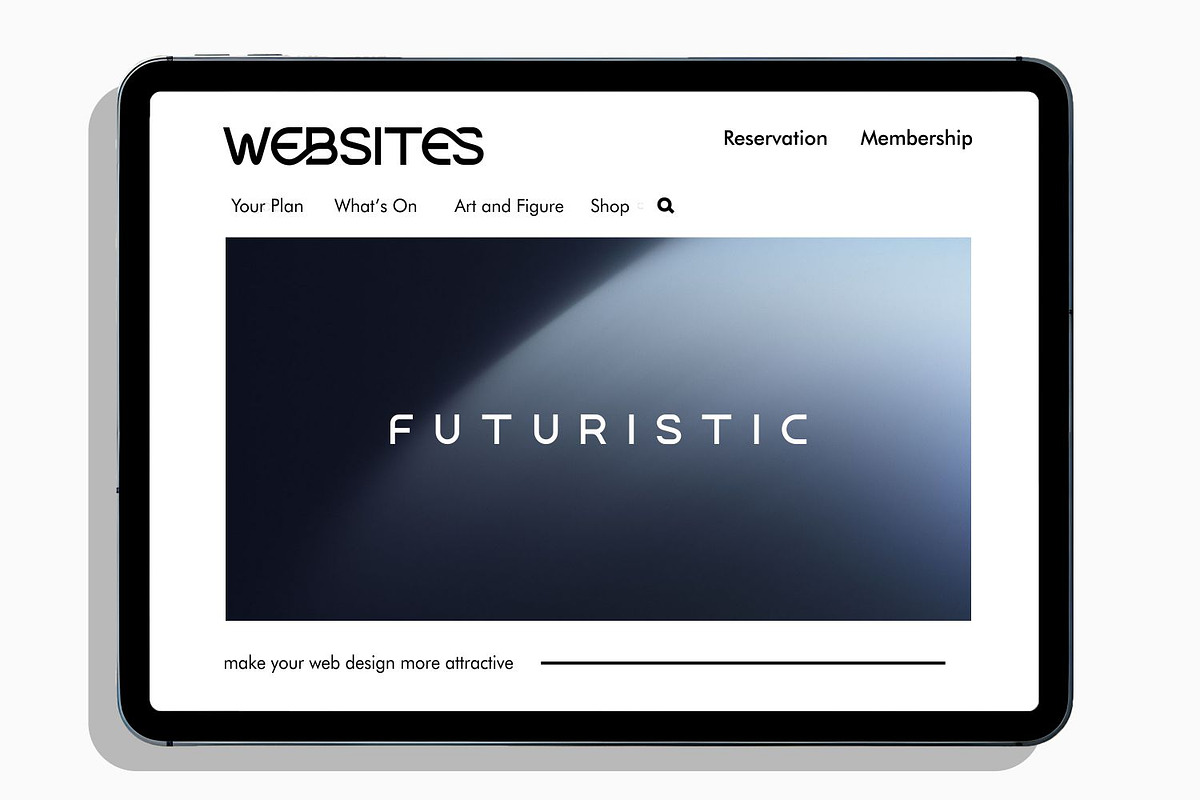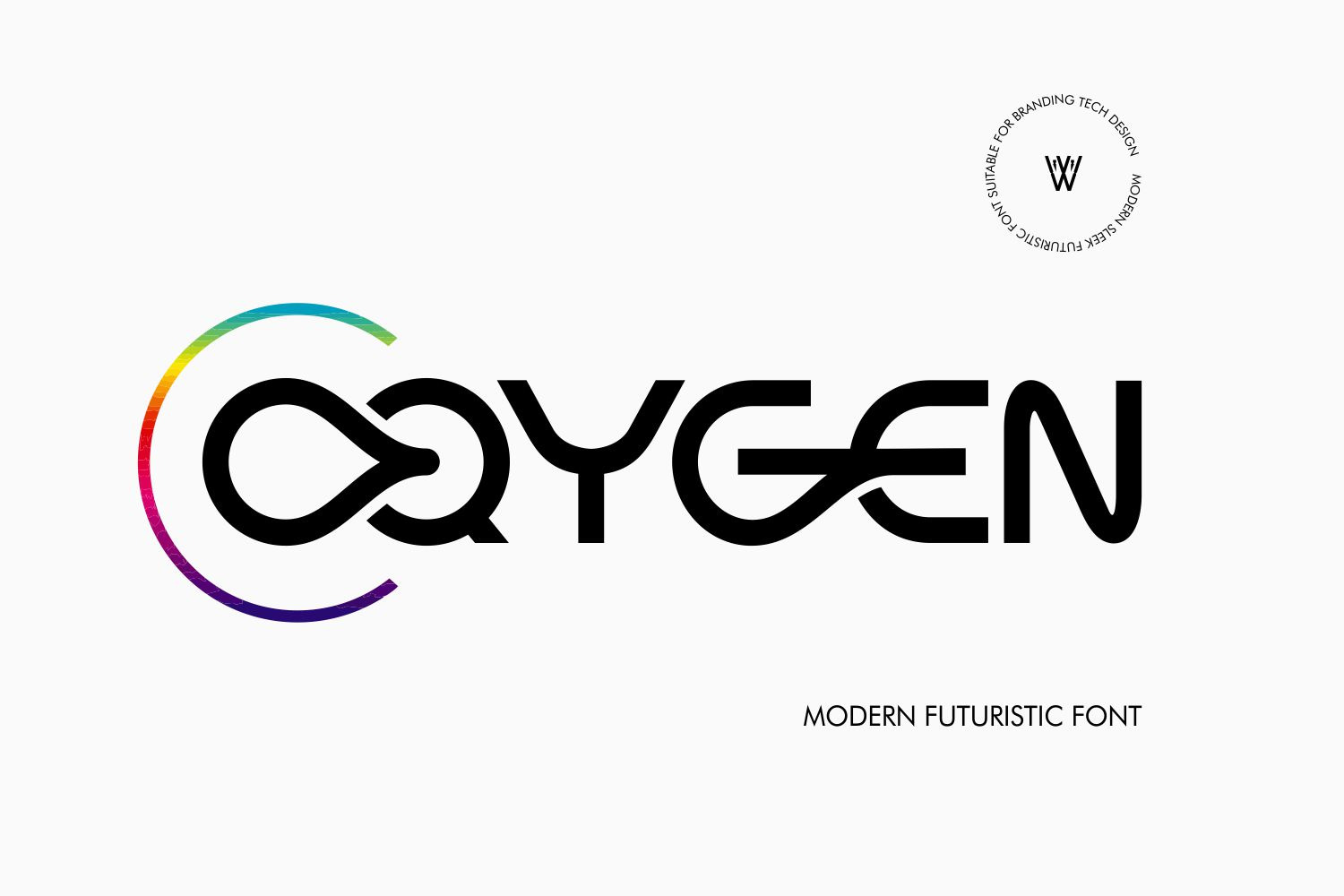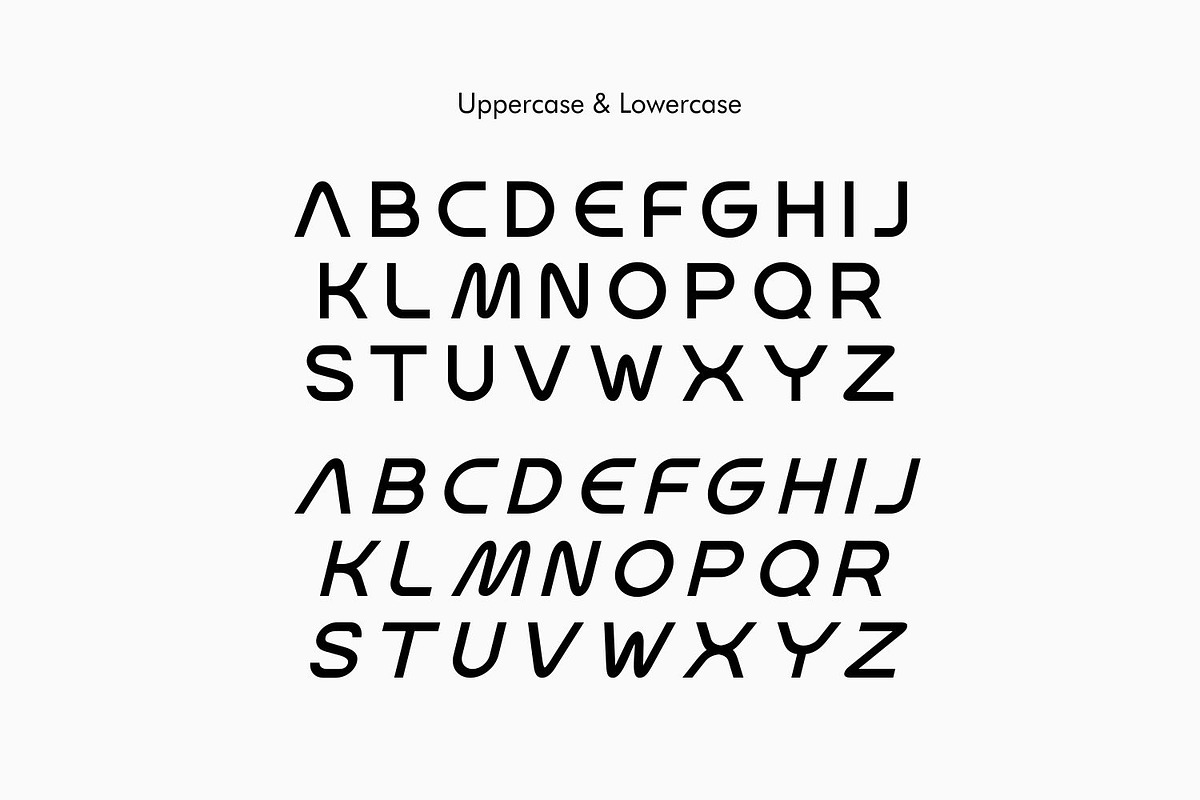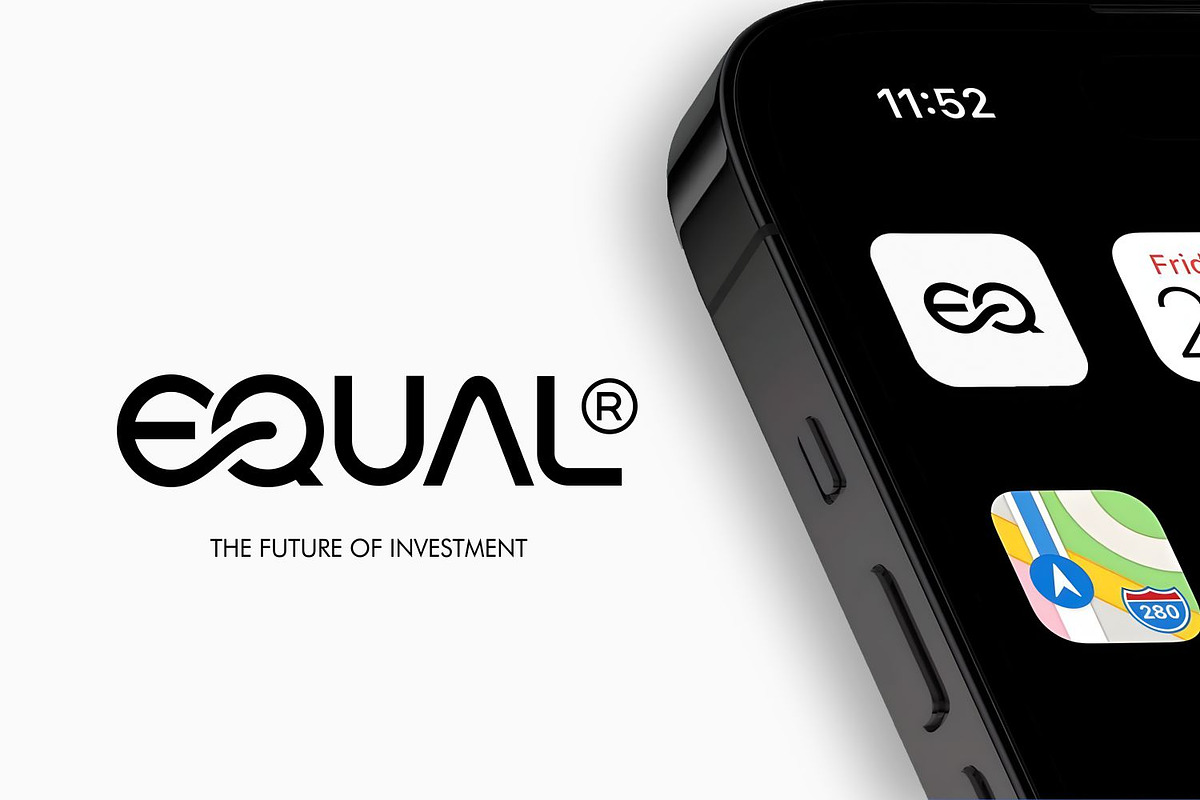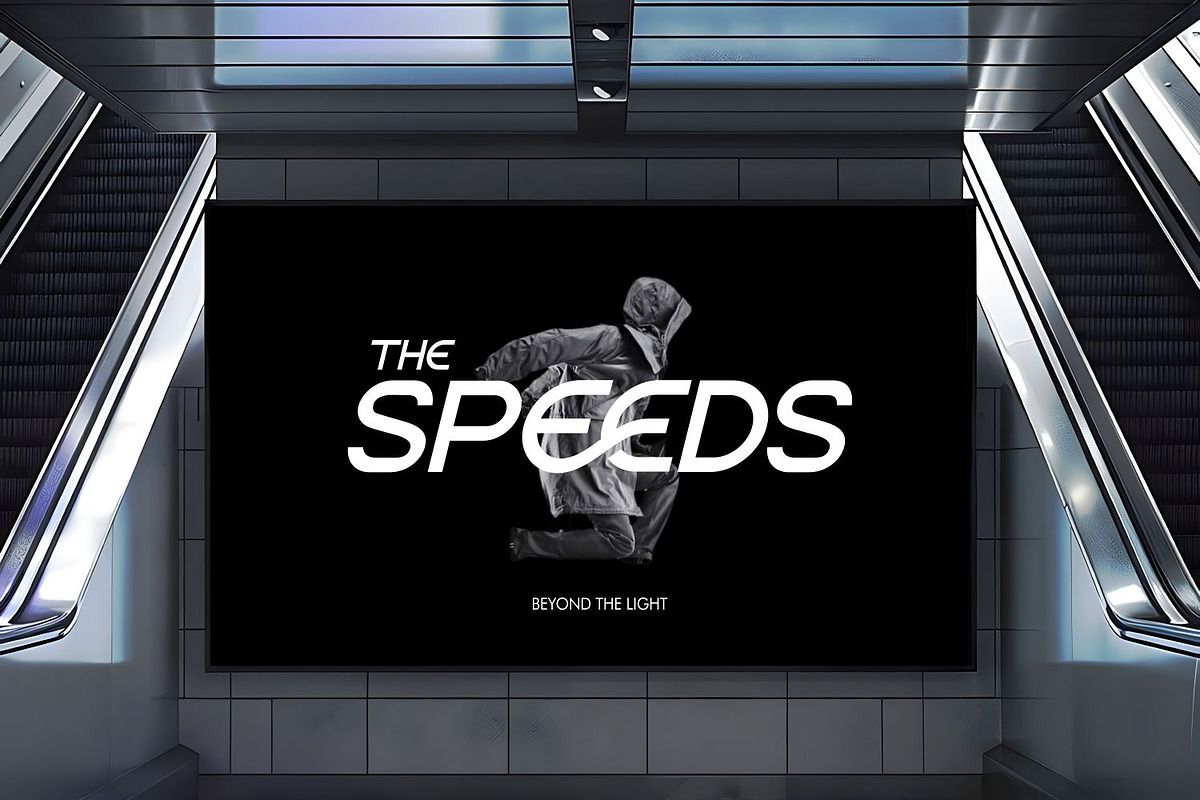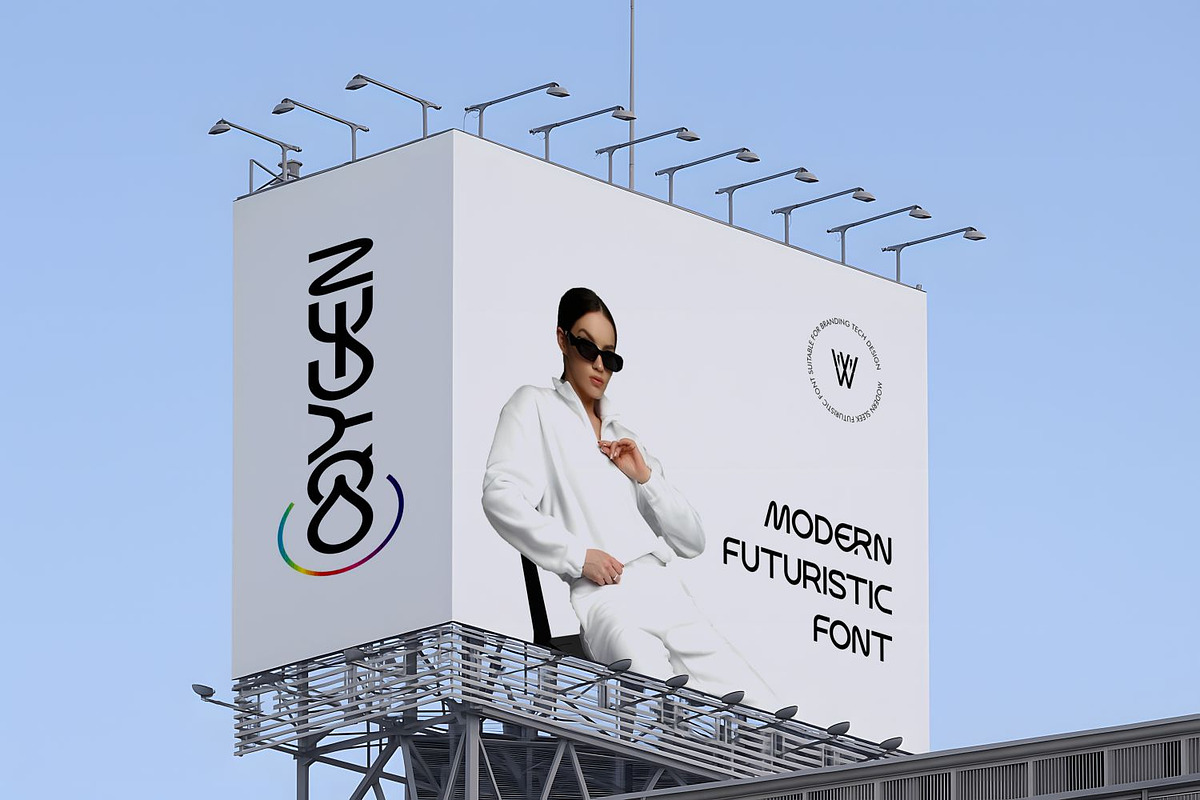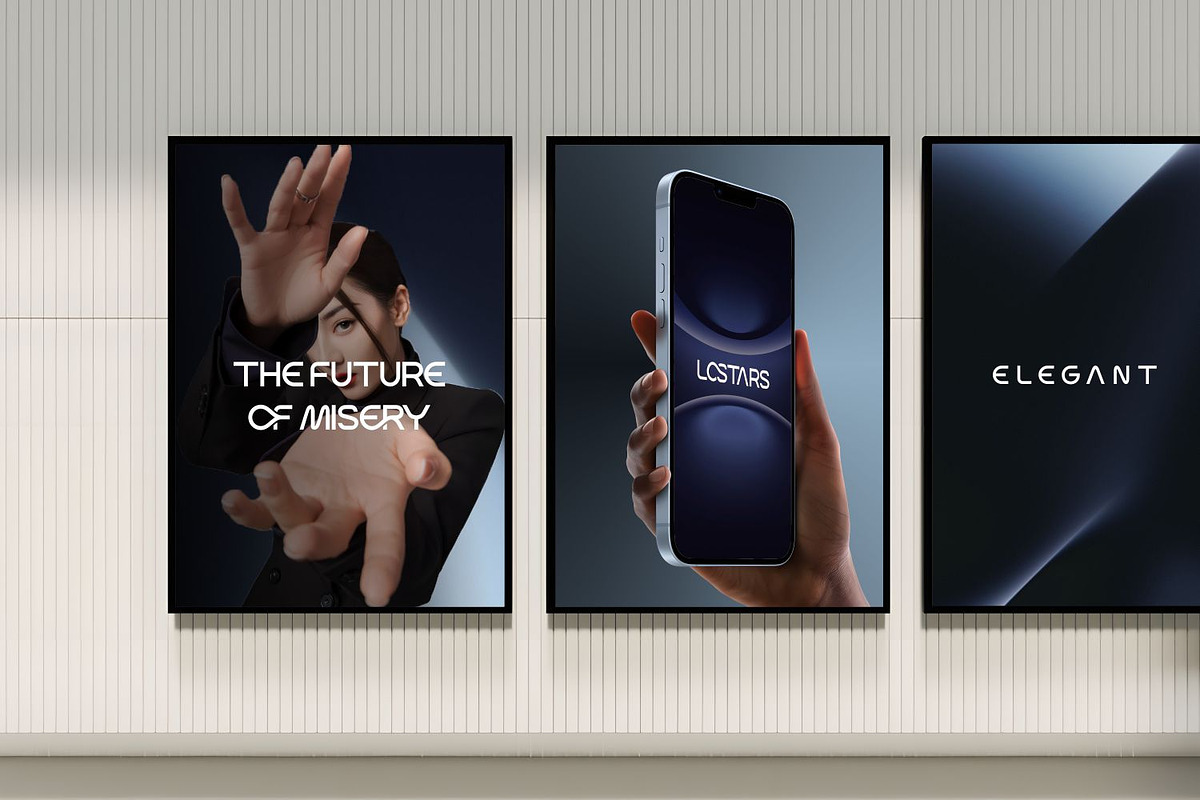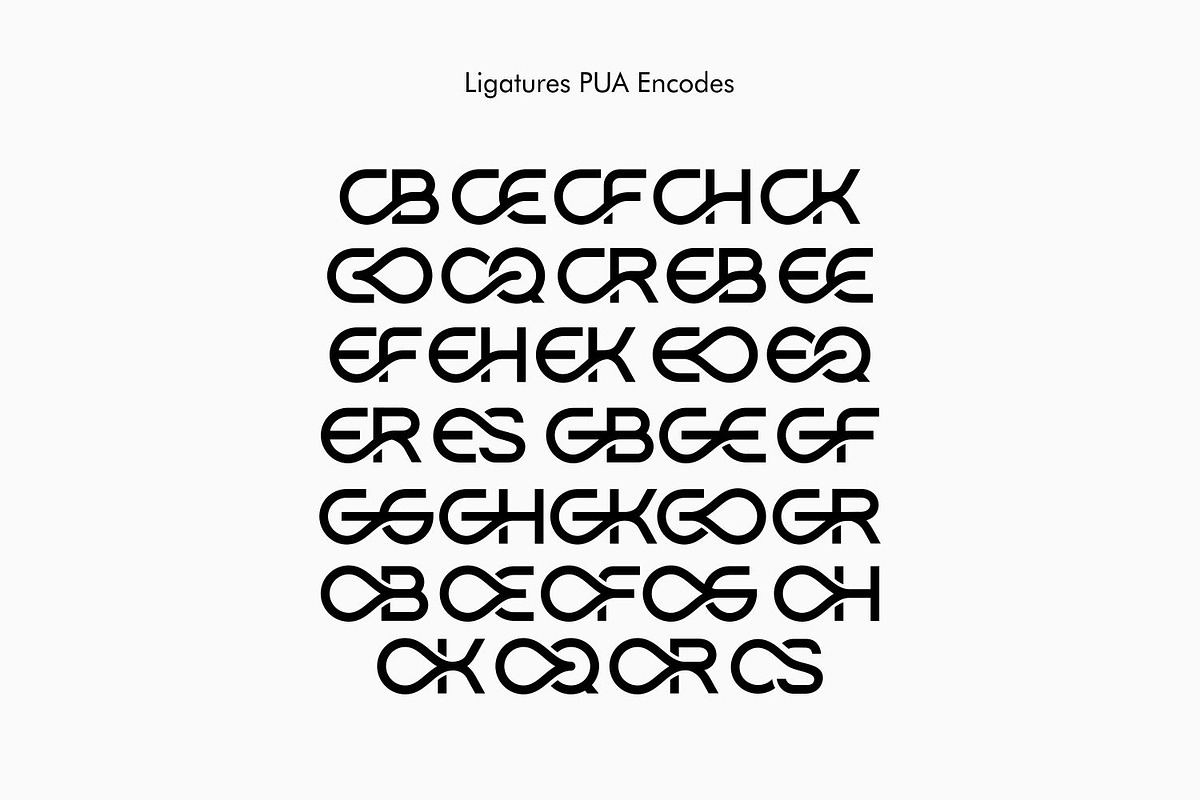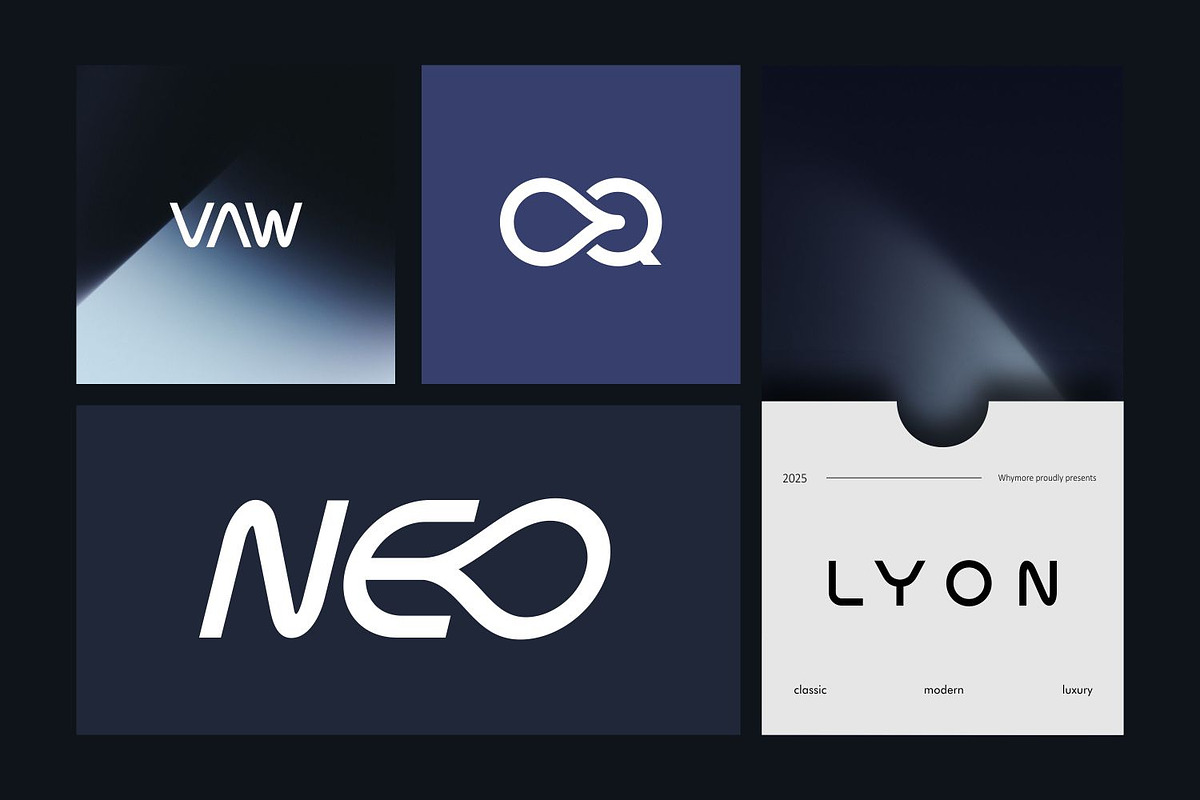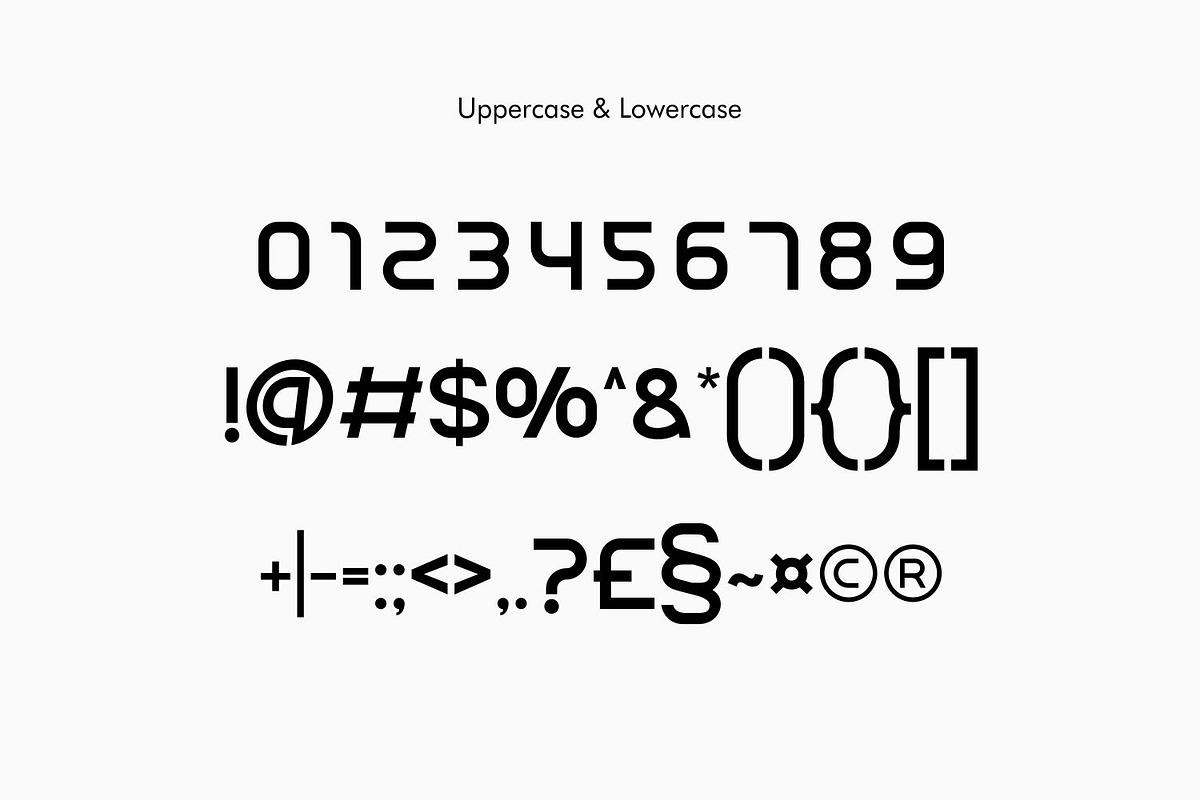
Oqygen - Futuristic Font Logo Brand
Oqygen is a modern sans serif font with an elegant and bold futuristic look. The letterforms are geometric and clean, giving it a strong contemporary feel that is clearly legible at any size. This bold and assertive style is ideal for Logo Fonts and Branding Fonts for technology companies or AI startups that want to highlight an innovative and future image. The retro-futuristic feel of the Y2K era (Y2k Font) adds to the appeal, making Oqygen a great choice for creating a modern and elegant digital identity (ModernLogo, ElegantLogo).
✅ Oqygen Key Features: ➡️ Modern & Futuristic: Oqygen blends futuristic and minimalist aesthetics thanks to clean sans serif lines and precise geometric shapes. ➡️ Bold & Bold: Bold Fonts' bold characters and Bold Display style make them excellent for large titles or logos, acting as eye-catching display fonts. ➡️ Geometric & Structured: Each letter is designed with perfect geometric construction, creating a precise and modern look (Geometric Fonts) that reflects cutting-edge technology. ➡️Compact (Condensed): The narrow letter-width ratio (Condensed Font) makes Oqygen appear compact yet powerful, ideal for large text use in limited spaces. ➡️Easy to Use: Suitable in various design applications, including online platforms such as Canva (Canva Font), making it easy to create digital and print brand materials.
🔹 1. Unique & Alluring Visual Design, Stand out in the middle of a boring trend!
🔹 2. Logos and branding with Oqygen will instantly feel like they belong to the big companies of tomorrow.
🔹 3. Flexible & Ready to Use in All Media Oqygen is not only suitable for logos, but also amazing for: Website & app UI Product mockups & stationary Social media design via Canva Startup presentations Smartwatch displays, app icons, and digital billboards
🔸 Oqygen looks consistent and strong on both small and large screens.
🔹4. This font reflects the Y2K Revival trend, Futuristic Clean UI, suitable for 2025 Design Trends